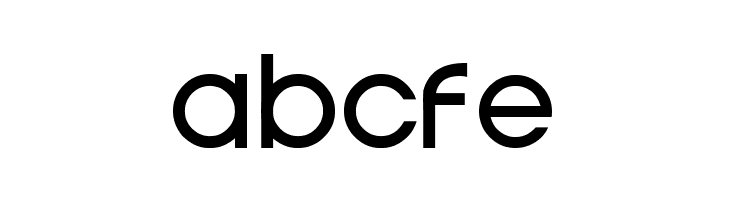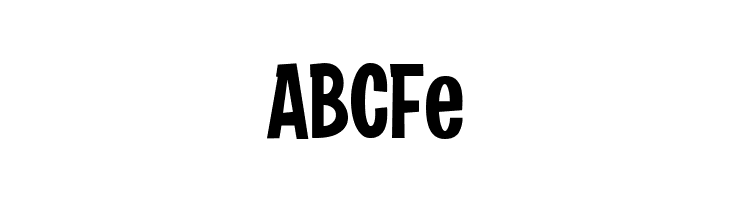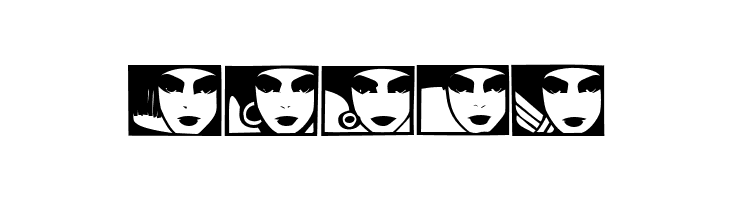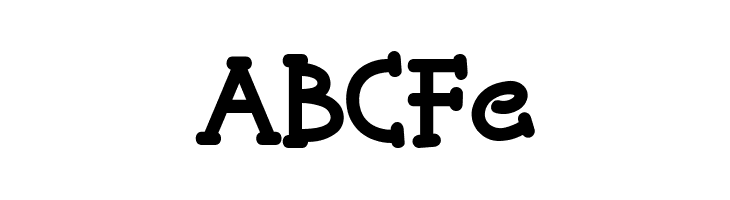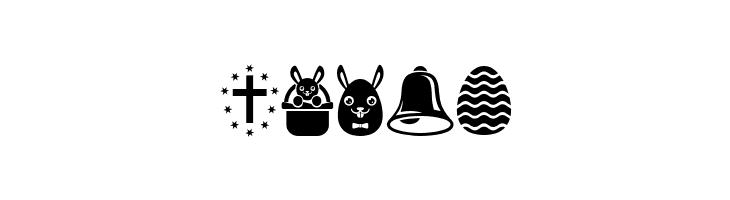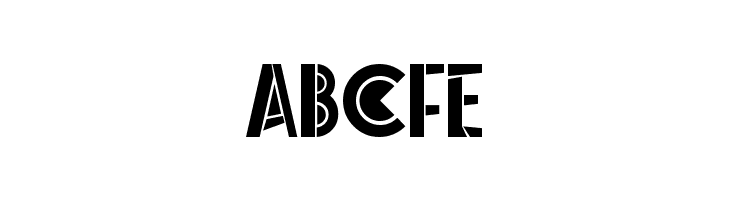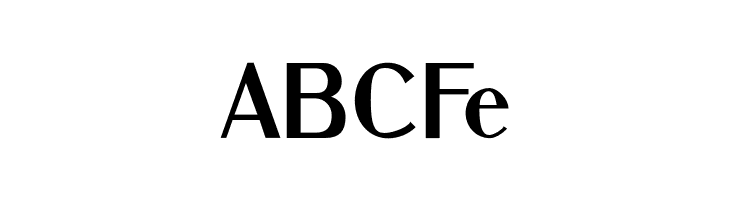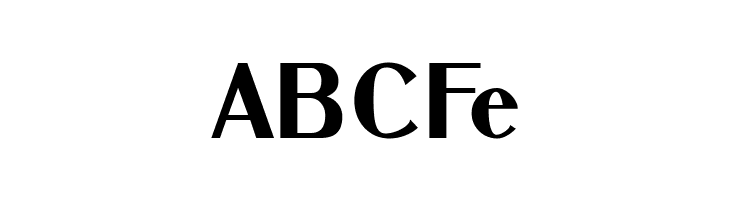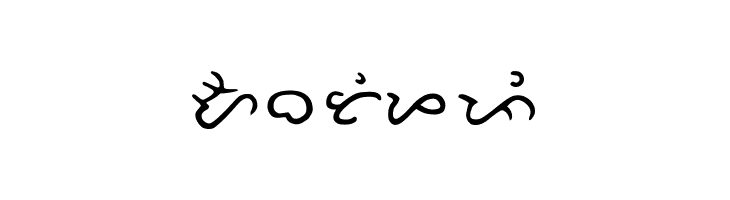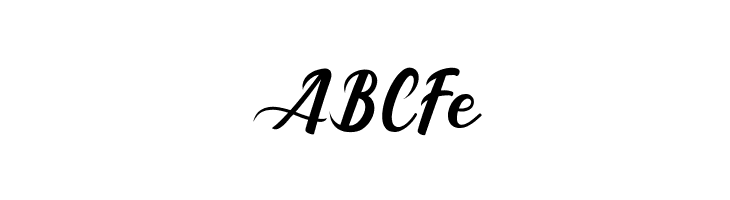
A bold, playful font with rounded, bubbly characters ideal for fun and informal designs.
A modern, geometric font with clean, rounded edges and consistent stroke widths.
A bold, striking font with strong, thick strokes and slightly condensed letterforms.
A modern serif font with a semi-bold weight, ideal for impactful and versatile design projects.
Decorative font featuring stylized female faces in geometric frames.
A bold, rounded font with a playful and energetic style.
A bold, playful font with a modern and quirky style.
A dynamic and elegant script font with flowing, cursive letterforms.
A decorative and flowing font with artistic letterforms.
A dynamic and elegant script font with high contrast and flowing letterforms.
A bold, brush-style font with dynamic, hand-drawn strokes.
A modern, cursive font with elegant curves and consistent stroke width.
A dynamic and elegant script font with flowing, cursive design and medium contrast.
A pixelated, retro-style font with a monospaced appearance, ideal for nostalgic and gaming themes.
A bold, italicized 3D font with a modern and dynamic style.
A bold, serif font with strong, angular serifs and a modern geometric influence.
A bold, italicized font with sharp angles and a dynamic presence.
A playful, bold font with rounded, hand-drawn characters.
A bold, playful handwritten font with expressive strokes and a lively character.
A playful and elegant collection of Easter-themed icons, perfect for festive designs.
A playful, handwritten font with a smooth, flowing style.
A whimsical, decorative font with characters encased in ornate egg shapes.
A playful, bold handwritten font with an informal and friendly style.
A bold, geometric typeface with a modern, blocky design.
A bold, dynamic script font with interconnected characters and high contrast.
A bold, ethnic-inspired font with geometric and decorative elements.
A modern, clean sans-serif font with sleek, rounded characters.